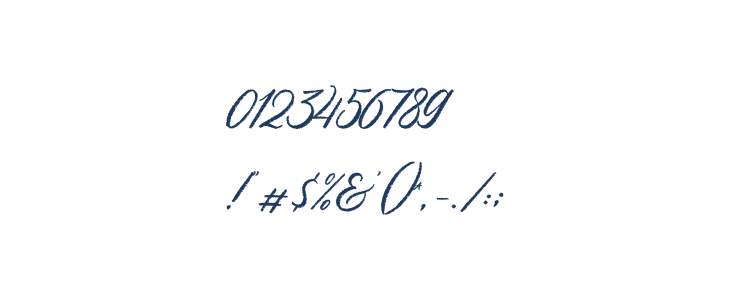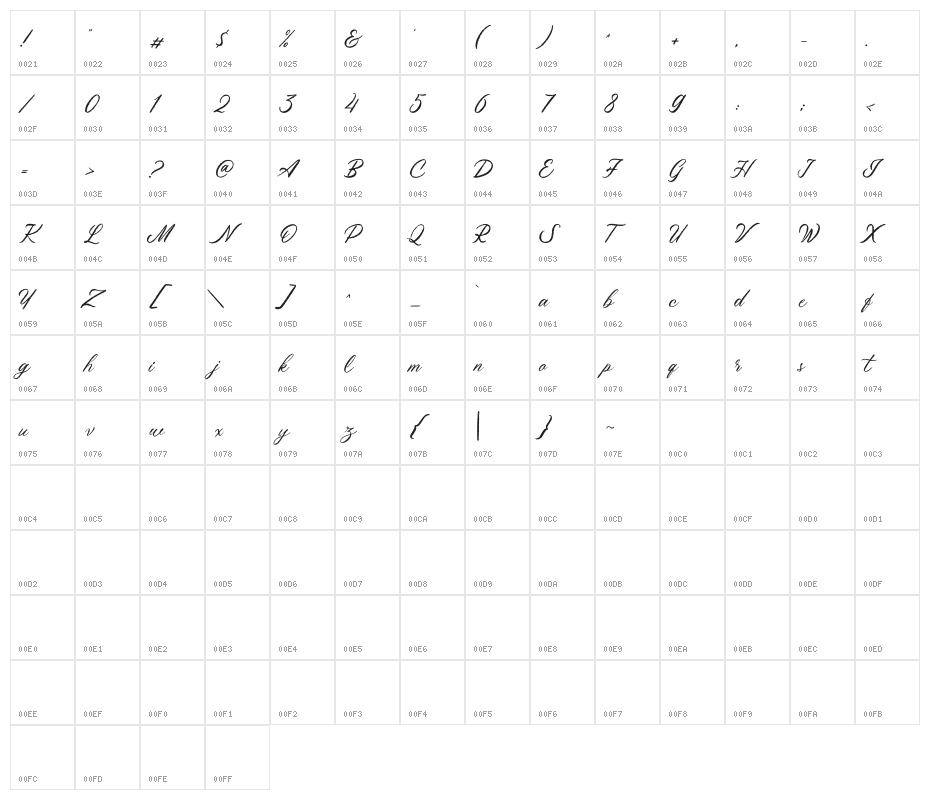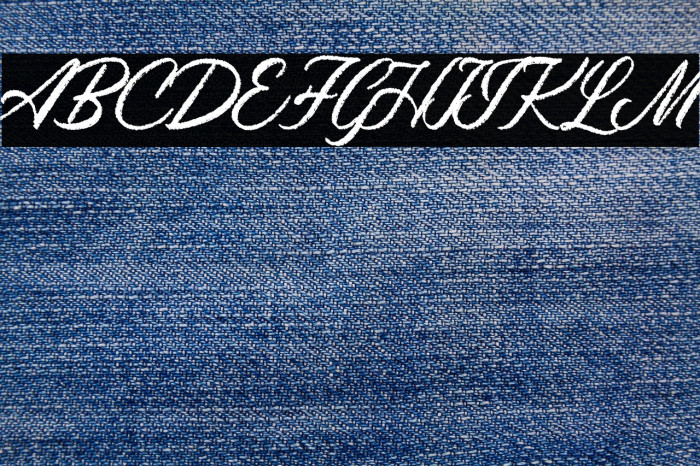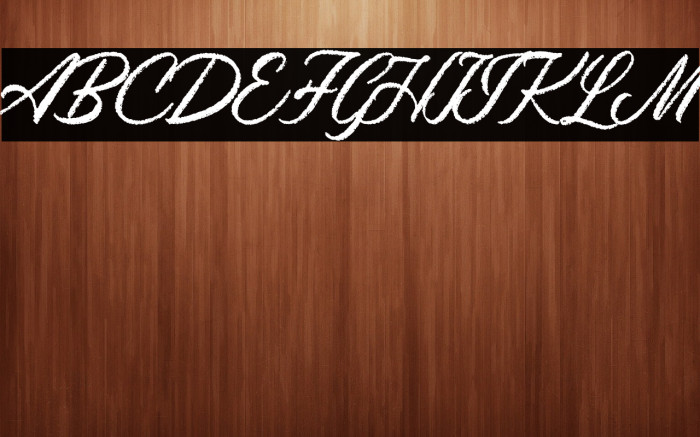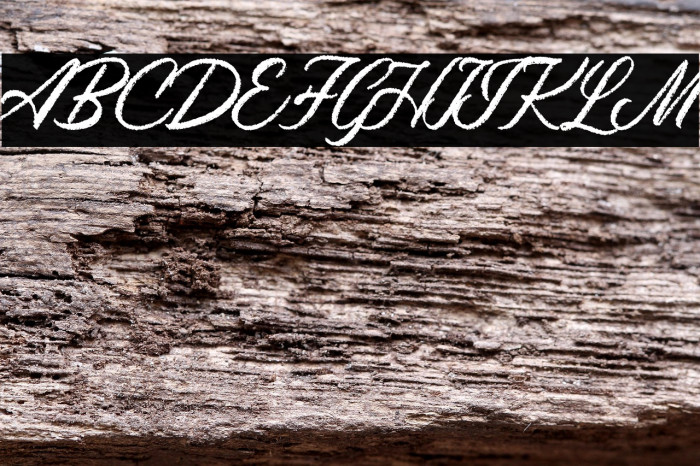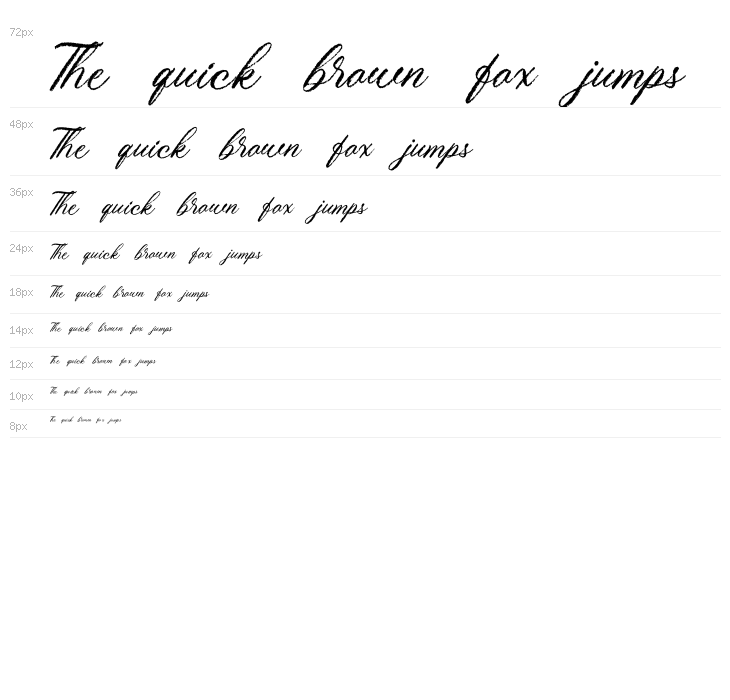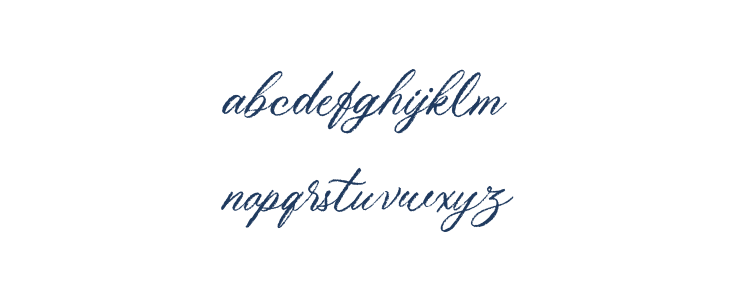
MaryathaDemo-Regular Font
MaryathaDemo-Regular Description
This font exudes a classic and elegant script style, characterized by its flowing, cursive letterforms that mimic the fluidity of handwriting. The uppercase letters are bold and sweeping, with dramatic flourishes that add a sense of sophistication. The lowercase letters maintain a consistent flow, enhancing readability while preserving the decorative nature. Numbers and special characters are crafted with the same attention to detail, ensuring a cohesive look across all glyphs. The overall appearance is both graceful and dynamic, making it suitable for projects that require a touch of refinement.